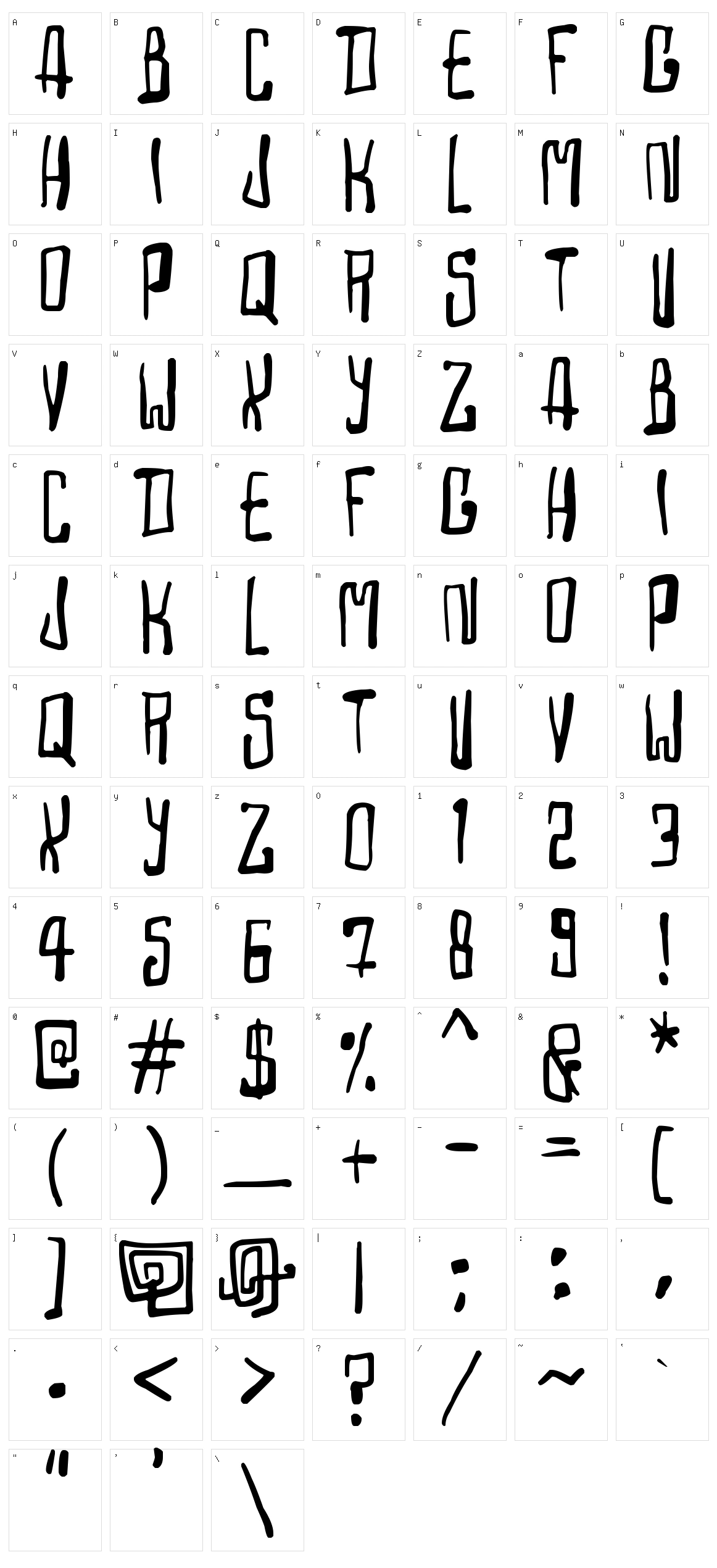
The free font Madhouse is carefully designed by Hawtpixel, showcasing a thoughtful balance of creativity and usability and falls under the Horror font style. When you download the ZIP file, it contains only 122.13 KB of font files, making it lightweight and quick to download. Please review the license details below to understand permitted usage and distribution rights. If license information is not available, we recommend using this font for personal projects only or contacting the author directly for commercial usage permissions.